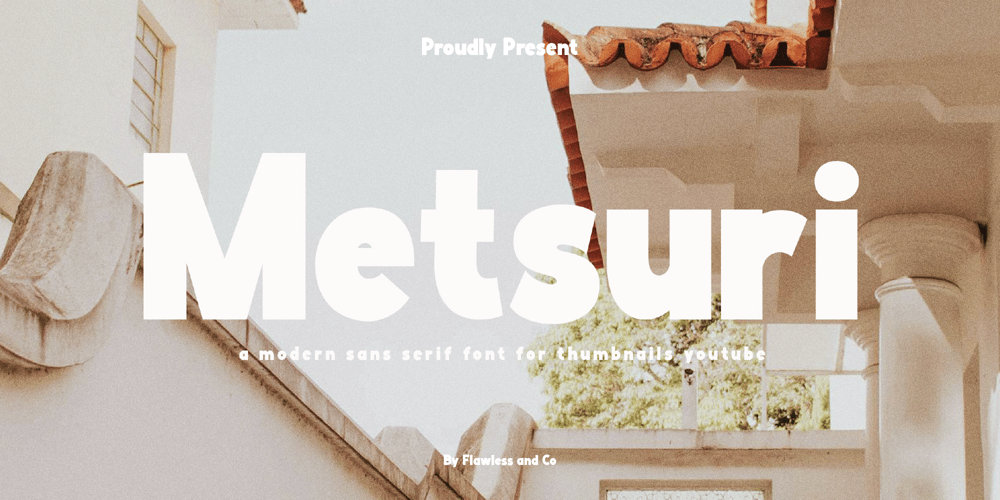
Metsuri
Metsuri font
Metsuri Font Family was designed by Achmad Yani and published by Flawlessandco. Metsuri contains 1 styles and family package options. Introducing Metsuri, a bold and captivating sans-serif font designed to make your YouTube thumbnails stand out from the crowd. With its clean lines and geometric structure, Metsuri exudes a sense of modernism and professionalism, perfectly complementing a wide range of YouTube content. This font is suitable for any graphic designs such as branding materials, Thumbnails YouTube, video content, print, business cards, logos, posters, t-shirts, photography, quotes, etc.There’s some connected letters and some alternates that suitable for any graphic designs such as branding materials, t-shirt, print, business cards, logo, poster, t-shirt, photography, quotes, etc.This font support for some multilingual. Also contains uppercase A-Z and lowercase a-z, alternate character, numbers 0-9, and some punctuation.If you need help, just write me! Thanks so much for checking out my shop!